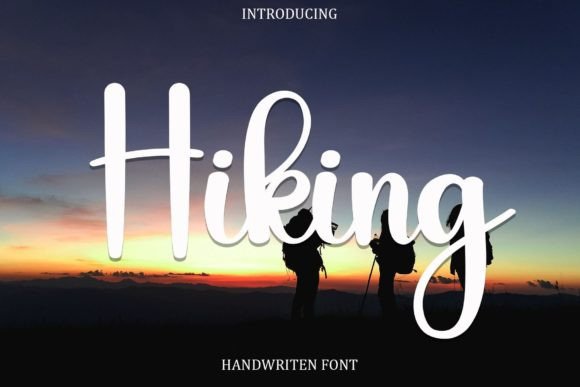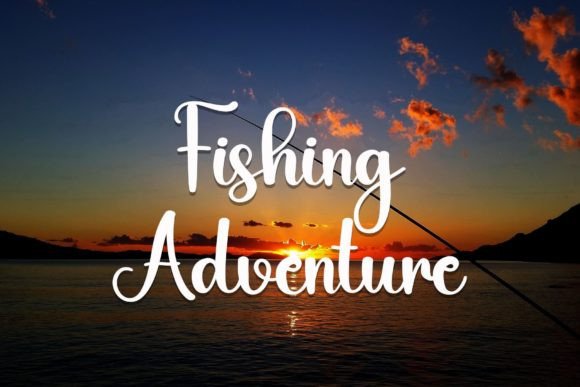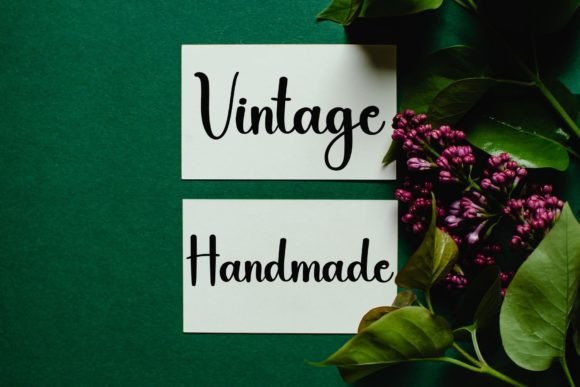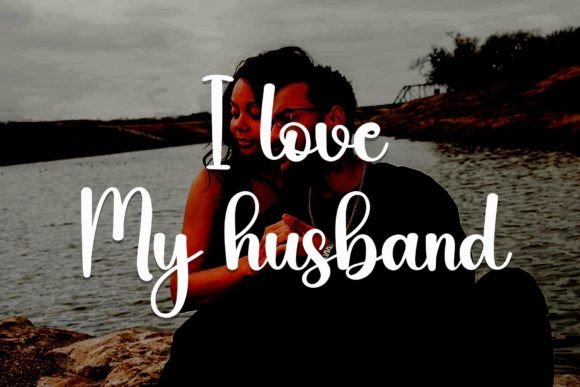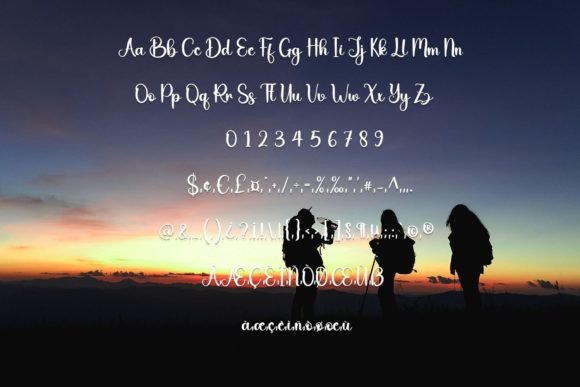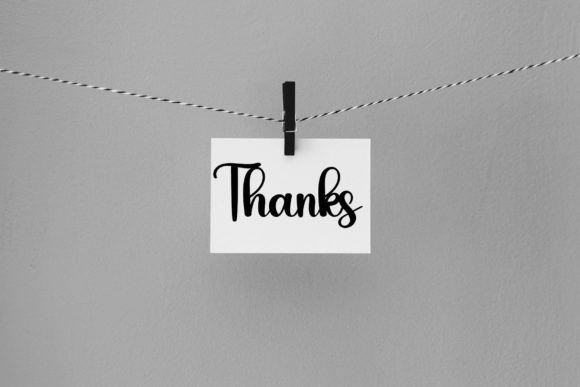
About Hiking Font
“Hiking” is a sweet and beautiful handwritten font that brings a delightful touch to your design projects. With characters that dance along the baseline, this font adds a luxurious spark, making it a perfect choice for a variety of creative endeavors.
The dancing baseline and handwritten charm of “Hiking” contribute to its uniqueness and versatility. Imagine using it on a wedding invitation, where its sweet and beautiful script enhances the romantic atmosphere. Picture it on a greeting card, adding a touch of luxury to your heartfelt messages.
Whether you’re working on branding materials, stationery, or any other design project, “Hiking” is designed to bring a sense of elegance and charm. As you incorporate this font into your creative endeavors, let its sweet and beautiful handwritten style be the key element that adds a luxury spark to your work, ensuring that your designs stand out with sophistication and grace.